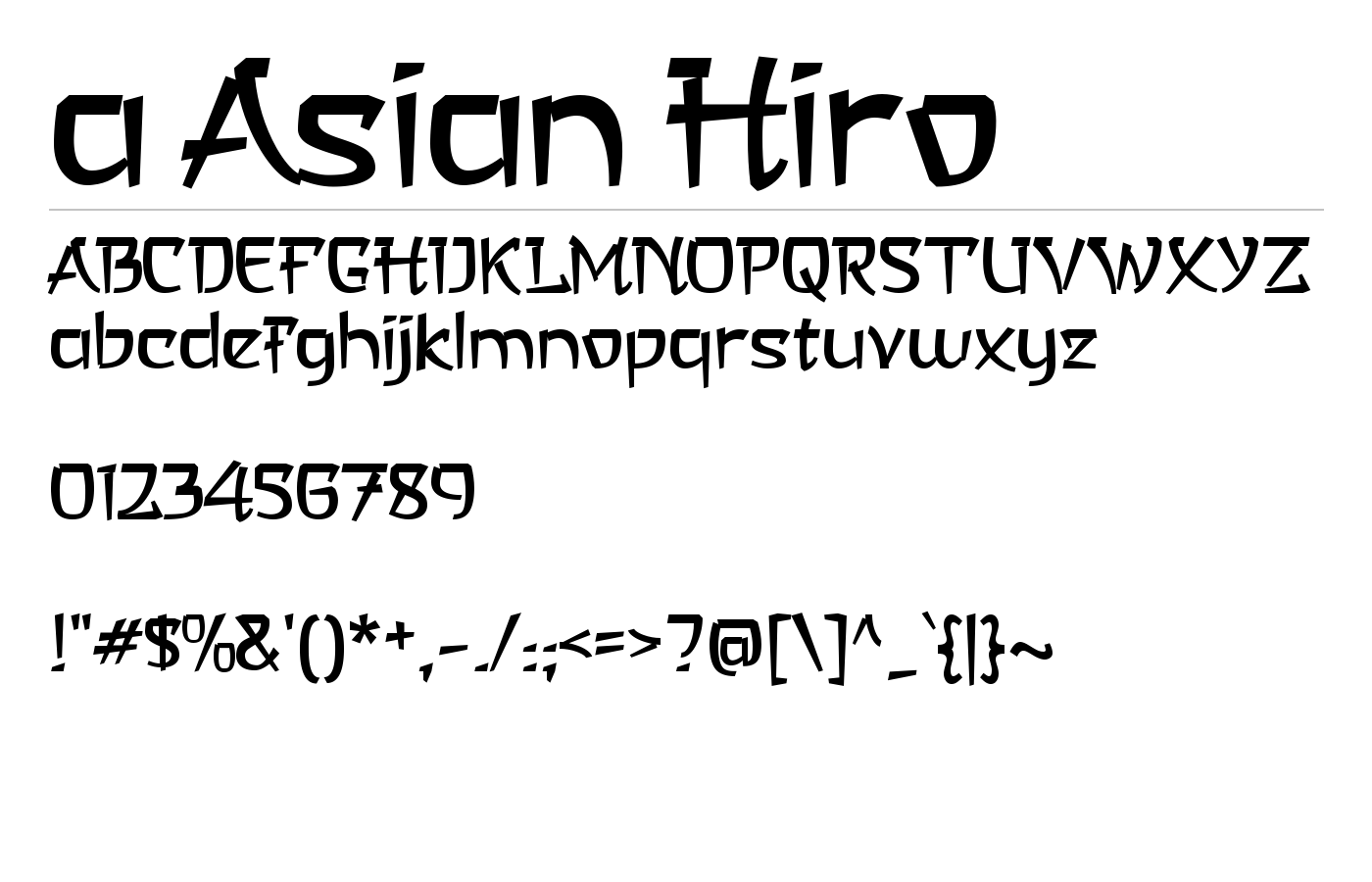
Asian Hiro is a distinctive sans serif font with a bold, slightly condensed structure and strong contrast between thick and thin strokes. Its angular, geometric shapes combined with subtle calligraphic touches give it an energetic, modern feel with a hint of traditional Asian influence, making it ideal for eye-catching headlines, logos, and branding that seek a unique and dynamic style. This font works well in creative and contemporary designs where personality and flair are key.
a Asian Hiro Font
About a Asian Hiro Font